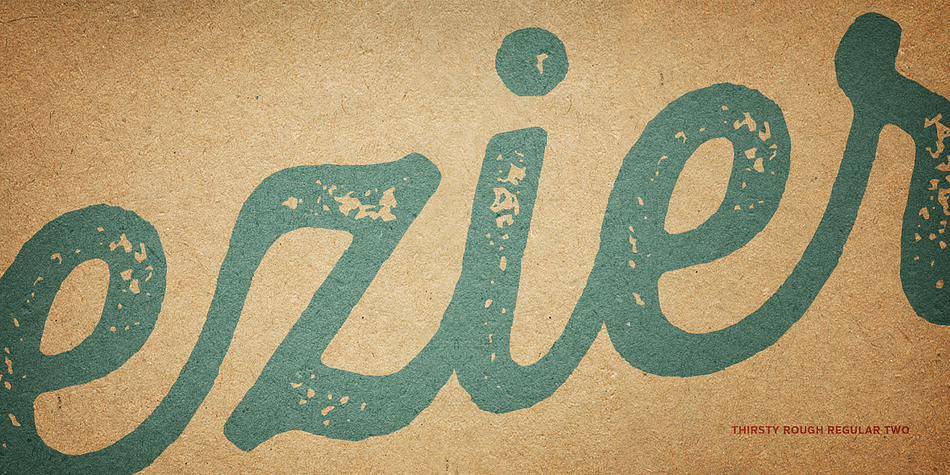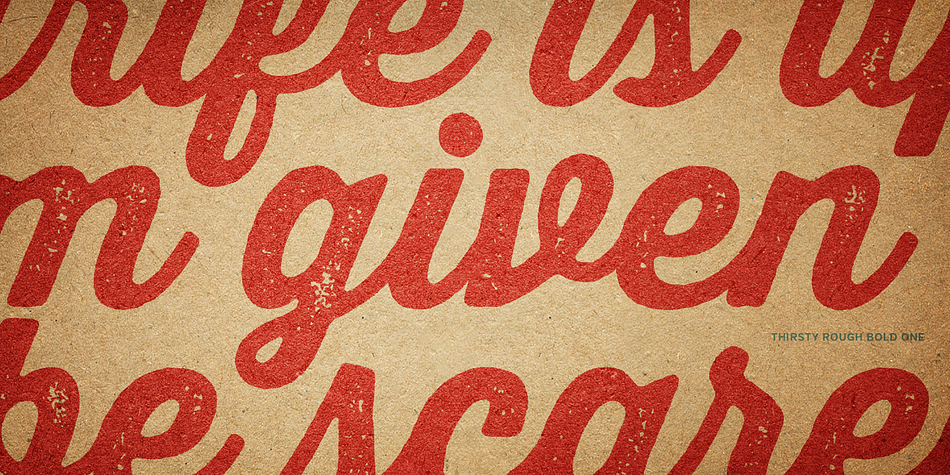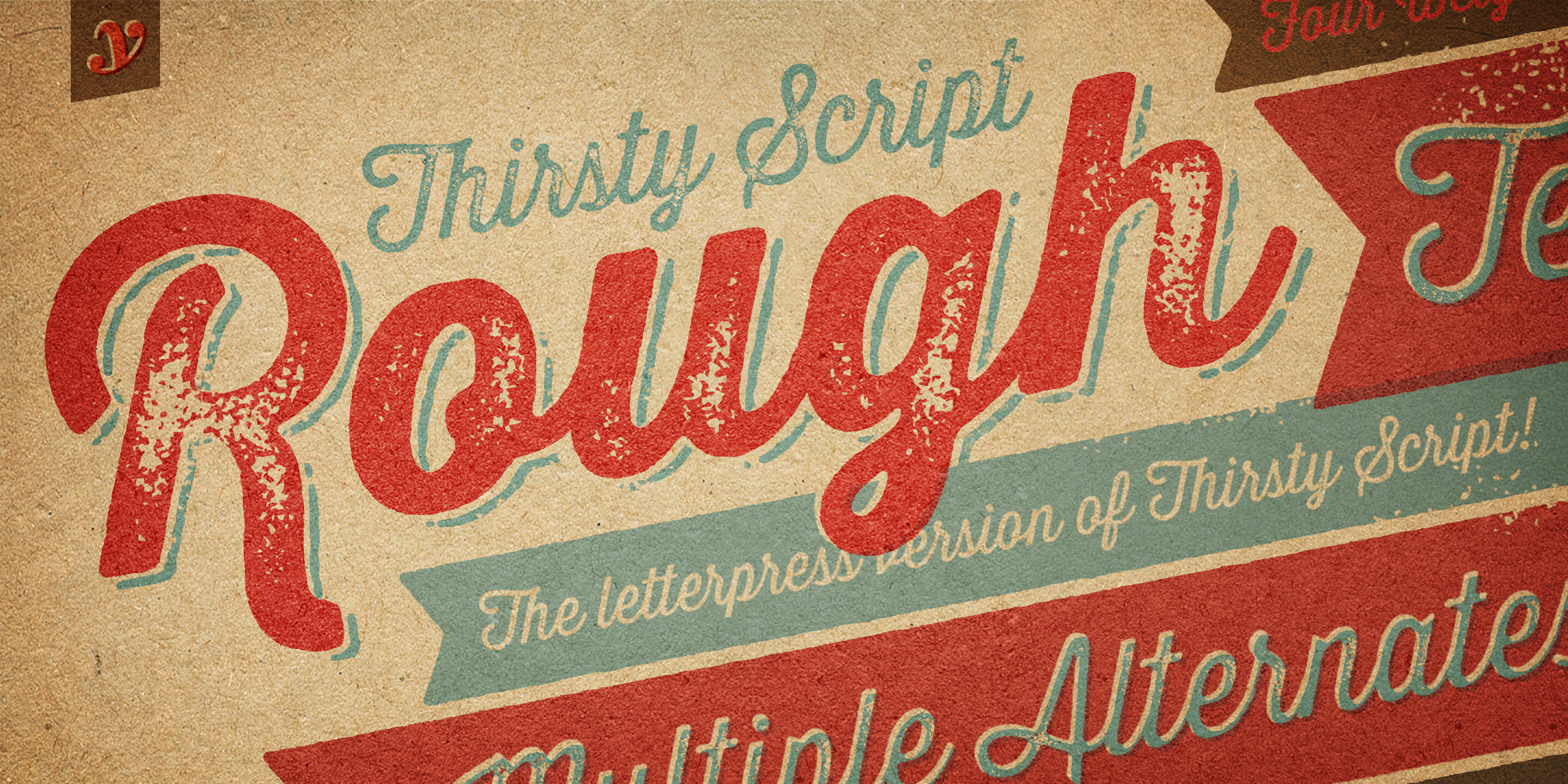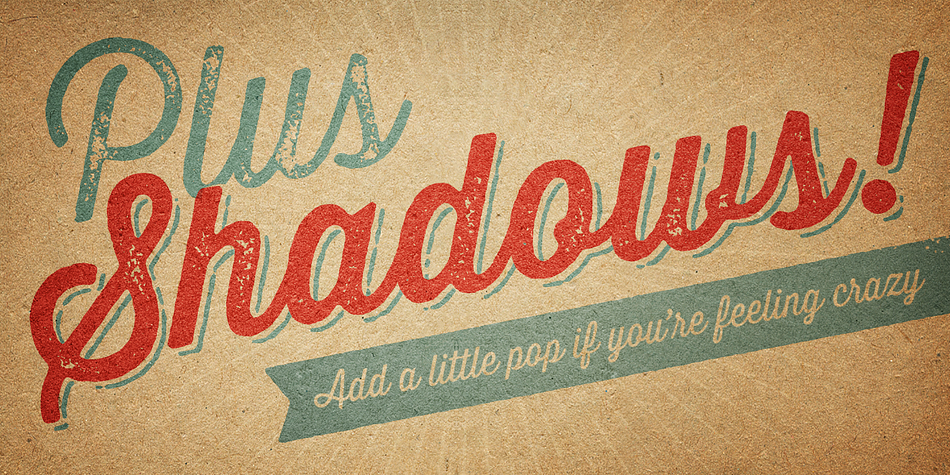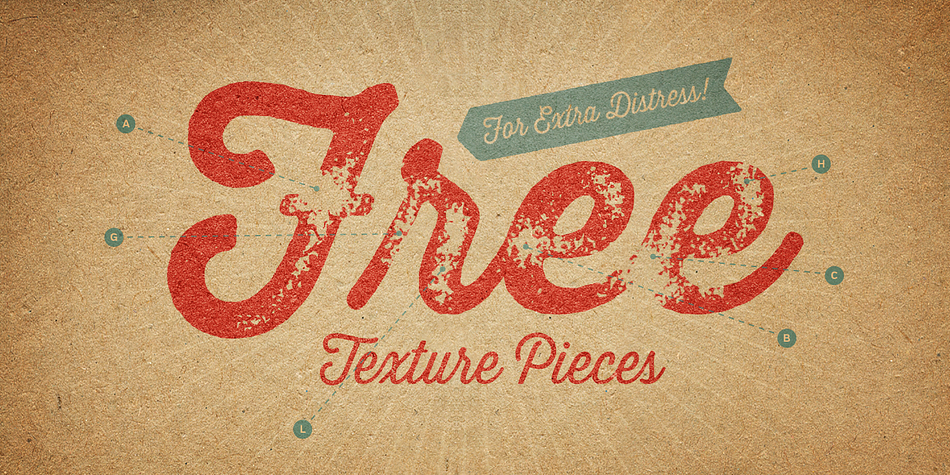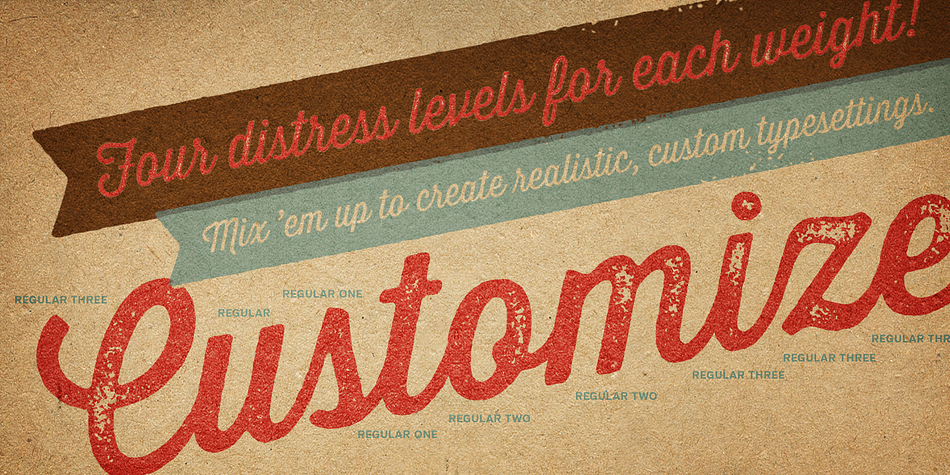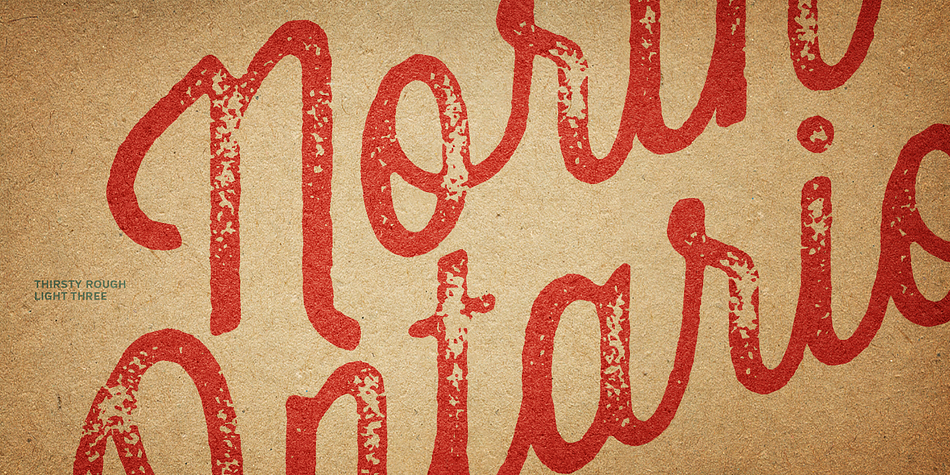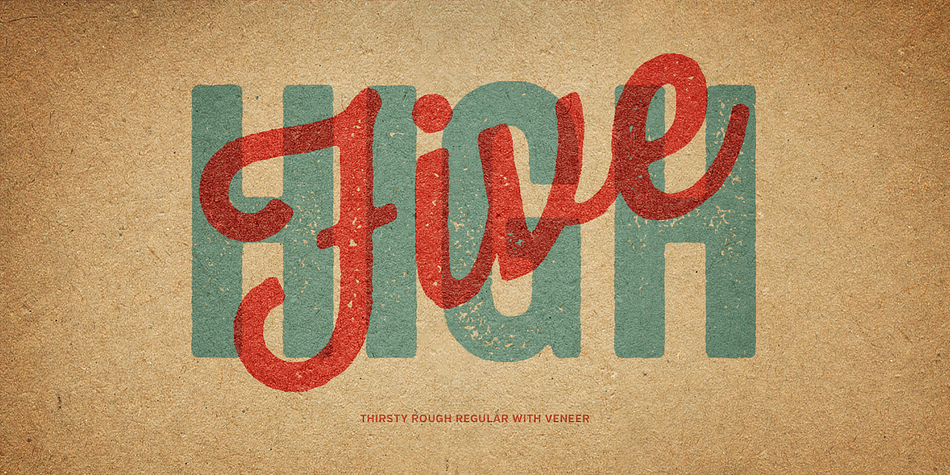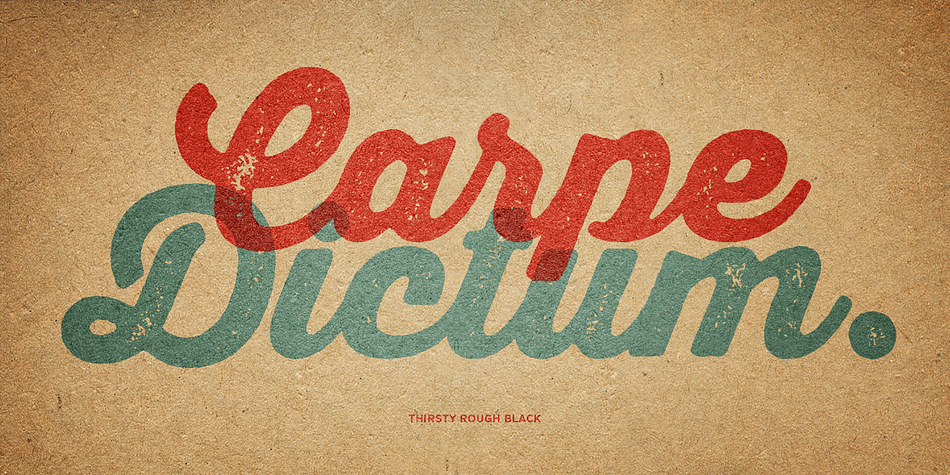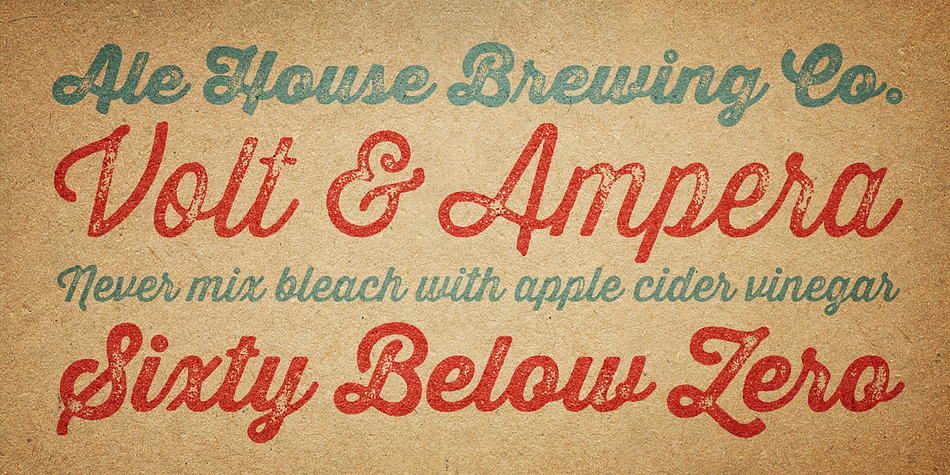
Thirsty Rough is a dingbat, grunge and brush script font family. This typeface has twenty-one styles and was published by Yellow Design Studio.
Thirsty Script Rough from Yellow Design Studio is the warm and weathered version of Thirsty Script with texture that captures the authentic qualities of letterpress printing. It’s highly customizable with four alternate versions of every weight ranging from very light to heavy distress. Because it’s remarkably detailed, it looks great even at large sizes. For extra customization and fun, it includes an set of matching texture pieces…for free!